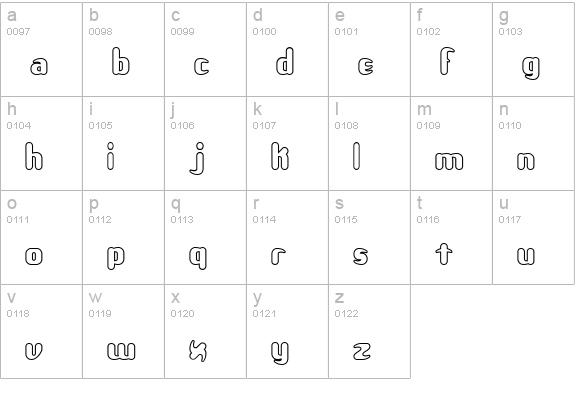
Unexplored Galaxies O BRK font is a captivating and futuristic typeface that will transport you to distant galaxies and uncharted territories. Its unique design combines sleek lines and bold curves, creating a visually stunning and otherworldly aesthetic. With its wide range of characters, Unexplored Galaxies O BRK font is perfect for all your creative projects, whether it's designing captivating logos, crafting eye-catching headlines, or adding a touch of cosmic beauty to your social media posts. One of the best features of Unexplored Galaxies O BRK font is that it is freely available to download at FontsMarket.com. This means that you can unleash your imagination and explore the vastness of this font without any cost. The versatility of Unexplored Galaxies O BRK font allows you to experiment with different styles and create truly unique designs. Its clean and modern look ensures legibility, while its distinctive elements bring a sense of adventure and exploration. Whether you're a designer looking to push the boundaries of typography or simply a space enthusiast wanting to add a touch of intergalactic charm to your projects, Unexplored Galaxies O BRK font is the perfect choice. Download it for free at FontsMarket.com and embark on a journey through the unexplored realms of typography.